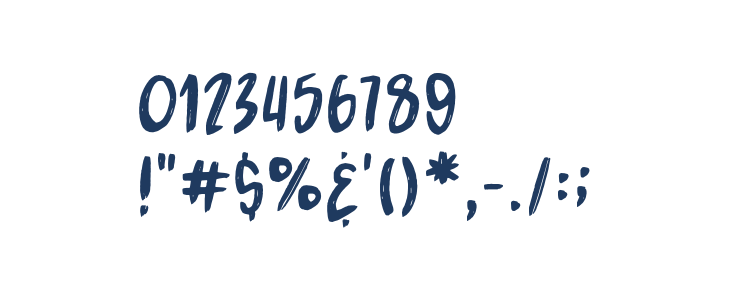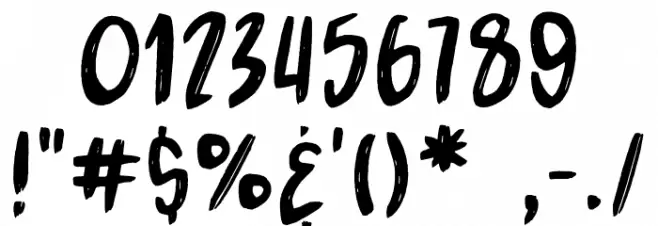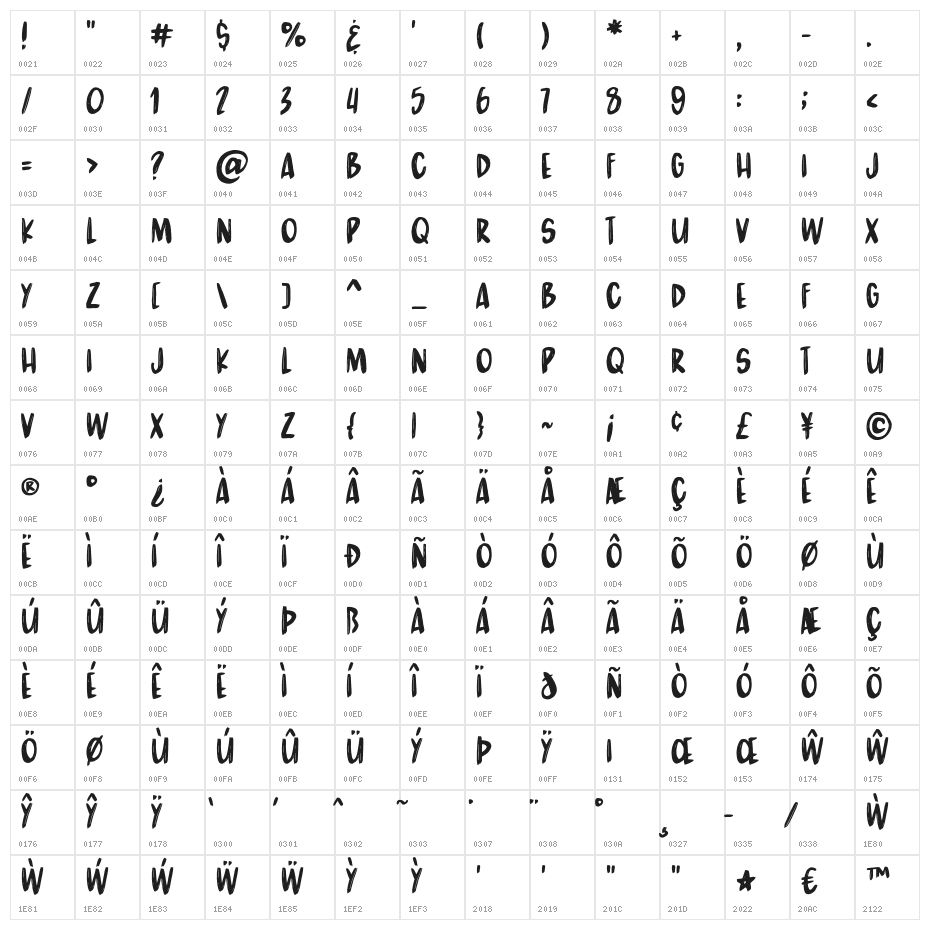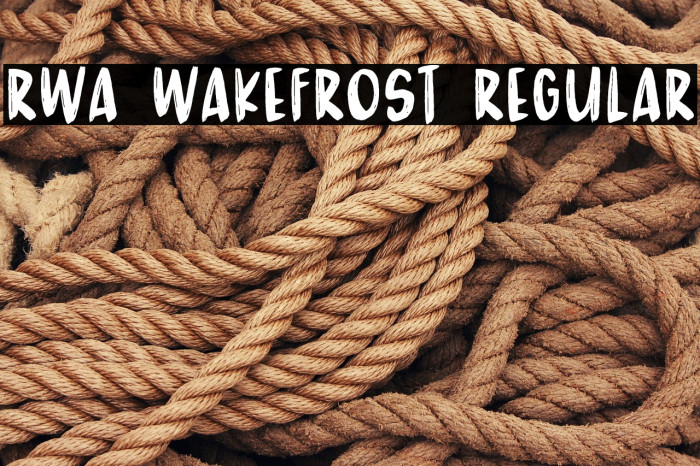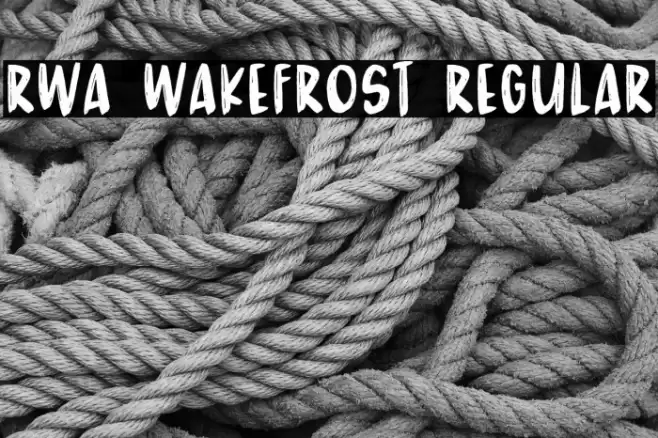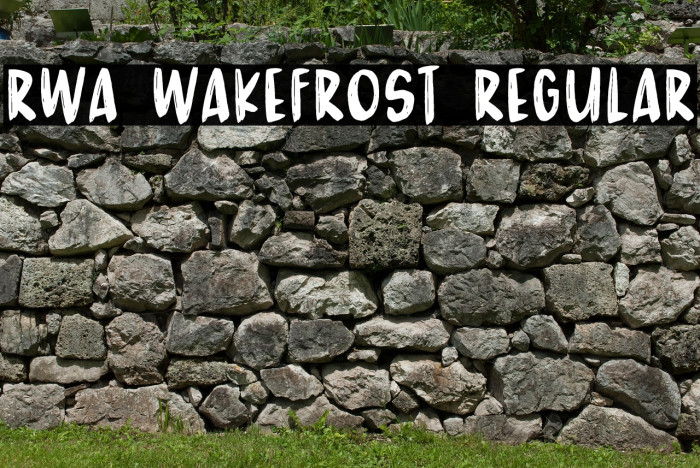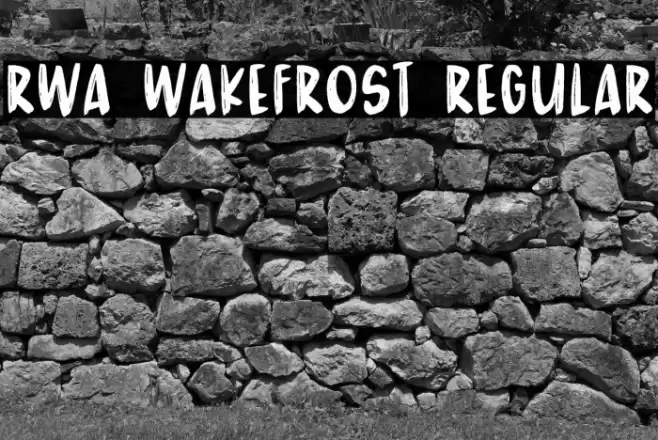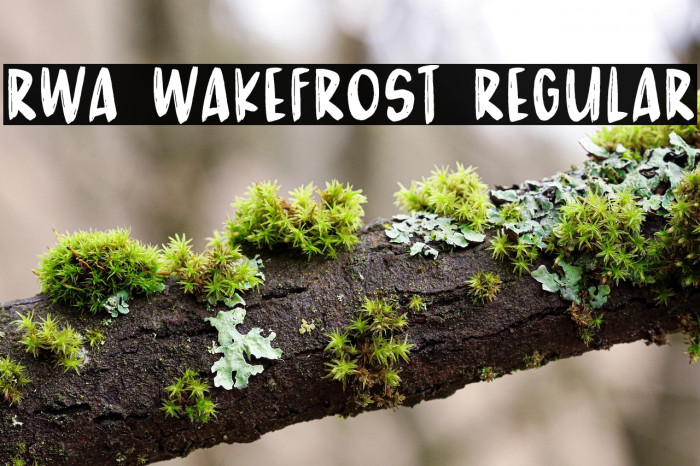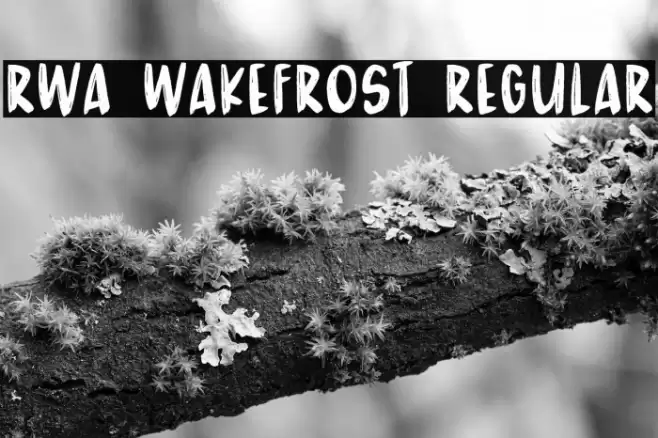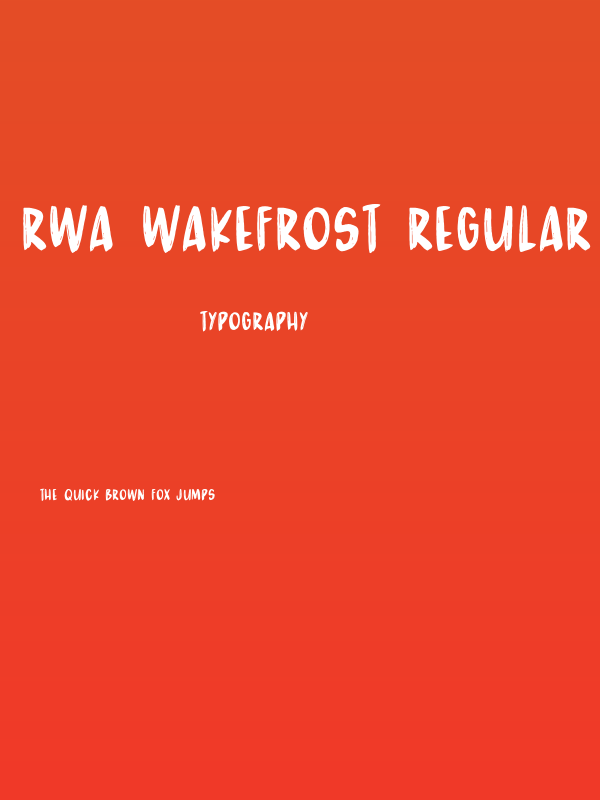
RWA Wakefrost Regular Font
RWA Wakefrost Regular Description
This font features a bold and expressive handwritten style, characterized by its thick strokes and slightly irregular shapes. The letters have a dynamic and energetic appearance, with a brush-like texture that adds a sense of movement and personality. The uppercase and lowercase letters maintain a consistent style, while the numerals and special characters complement the overall aesthetic. This font's unique and artistic design makes it stand out, ideal for projects that require a personal and creative touch.